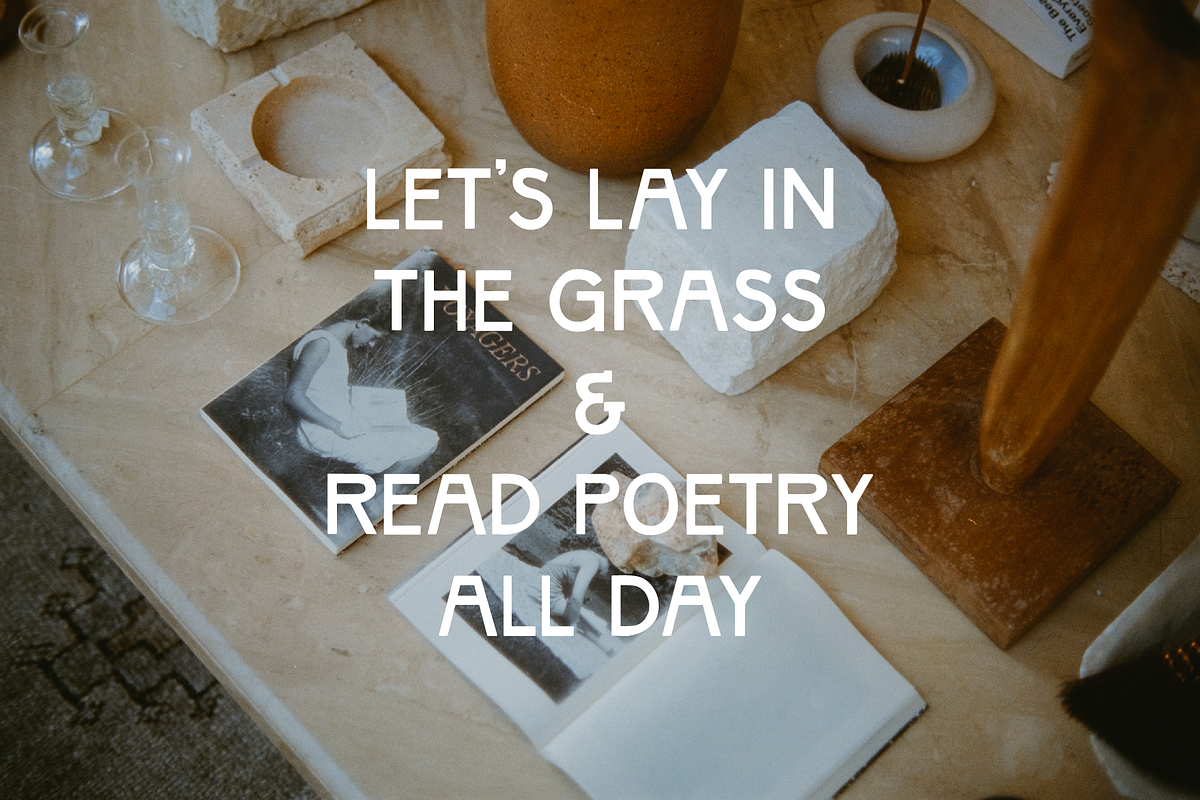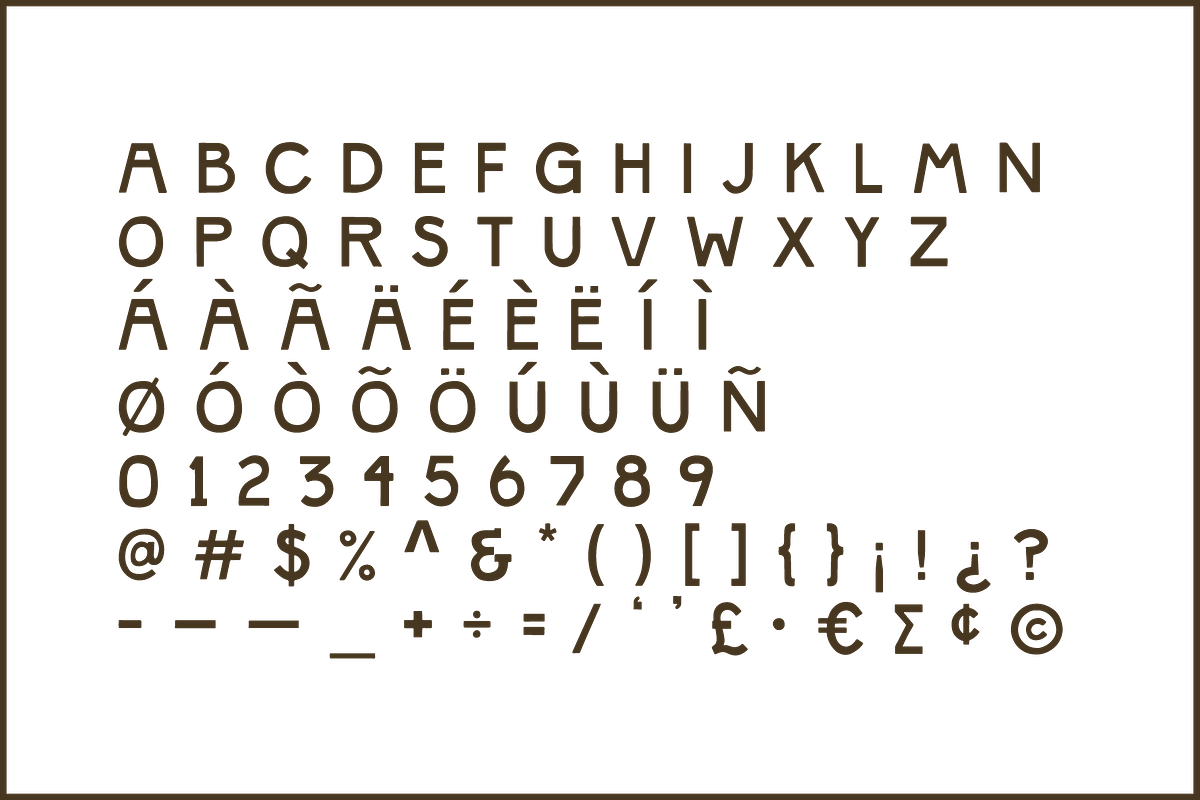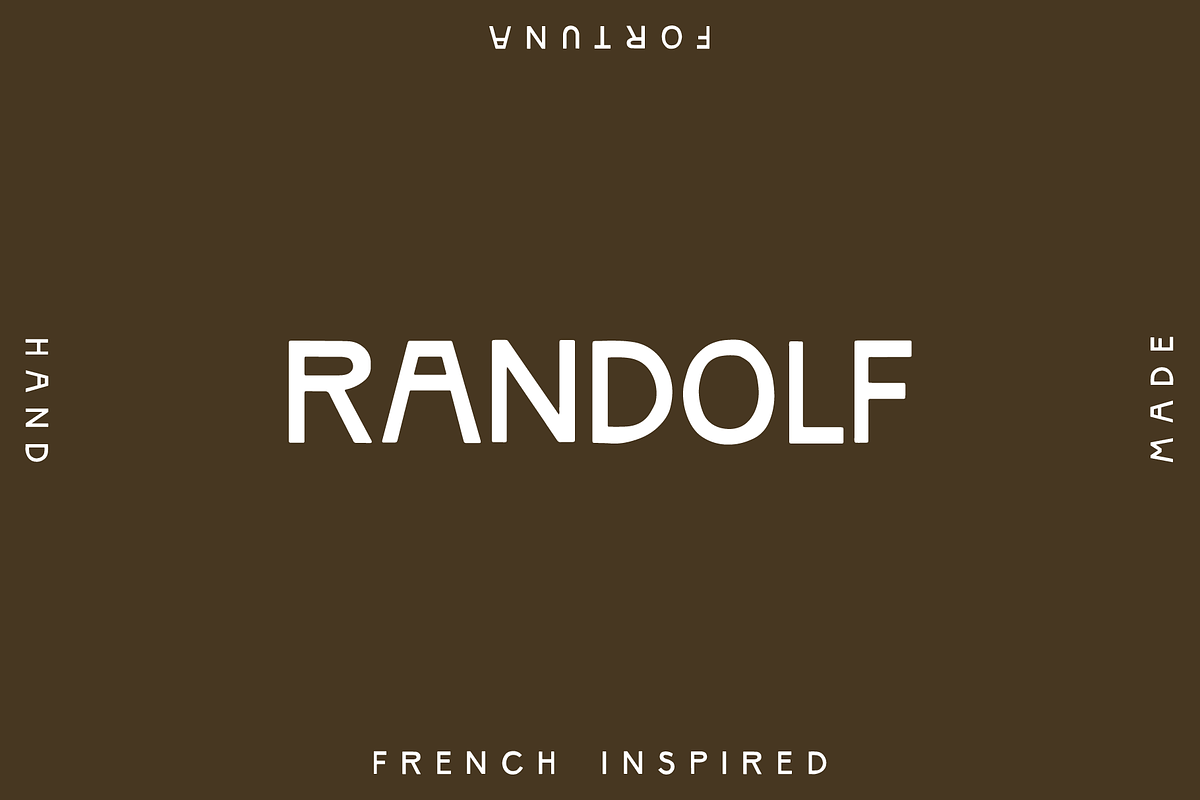
Randolf: Hand Drawn Sans Serif
Randolf is inspired by vintage french posters.
This hand-drawn font is thoughtfully designed to work in a wide-array of scenarios. Somewhere between art deco and art nouveau, randolf fits in classic, yet modern style of design.